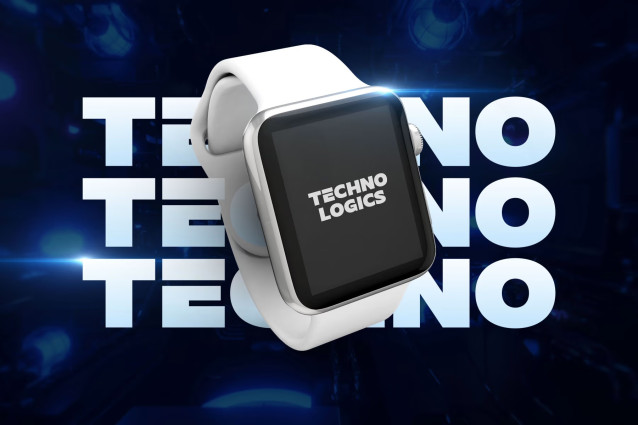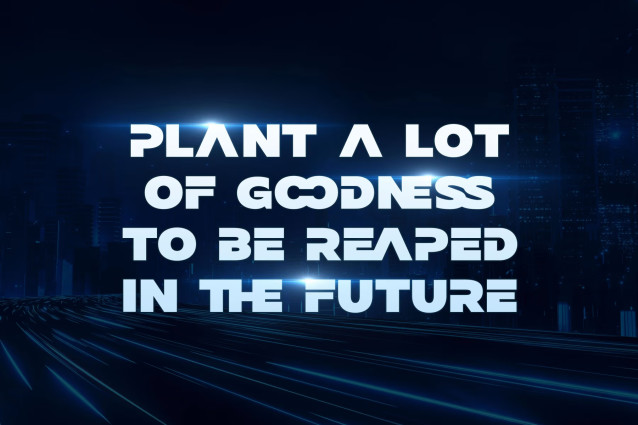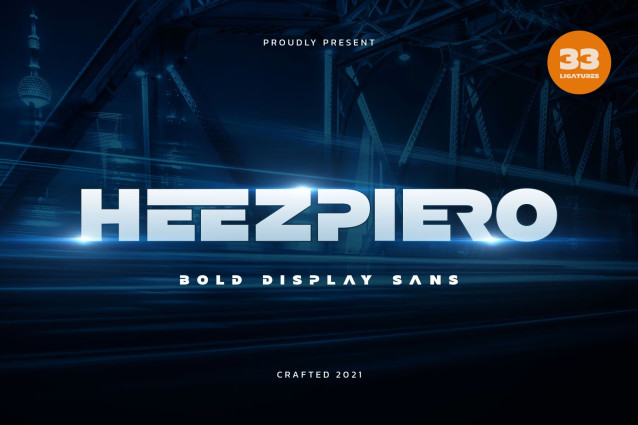
Hello Everyone, Introduce our new collection, Heezpiero – Bold Display Sans With 33 Ligatures, Inspired from famous logos of Technology and brands that have very strong characteristics,
very suitable for posters, t-shirt, packaging, branding, logotype and more.
Heezpiero font with strong and challenging nuances. very suitable for the title, typography, clothes, Poster, magazines, brochures, packaging,Websites and much more for your design needs, making your designs more modern and professional.